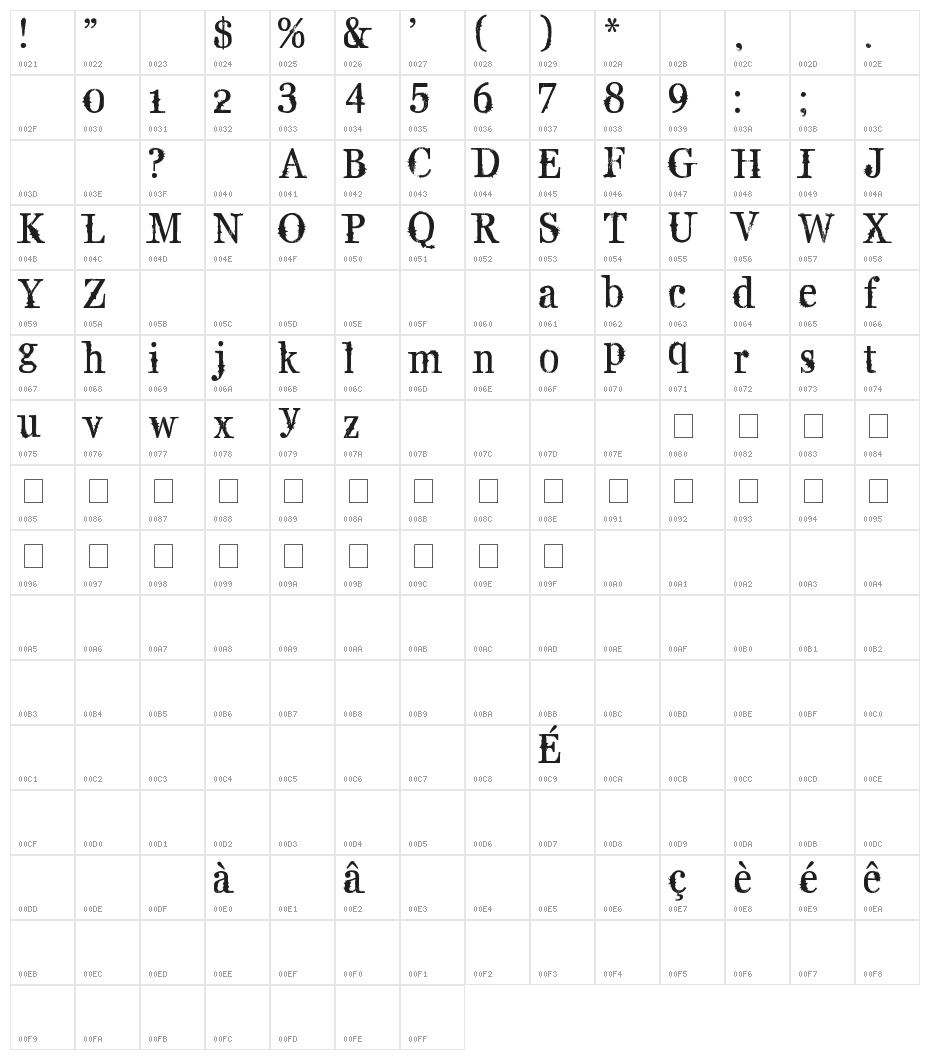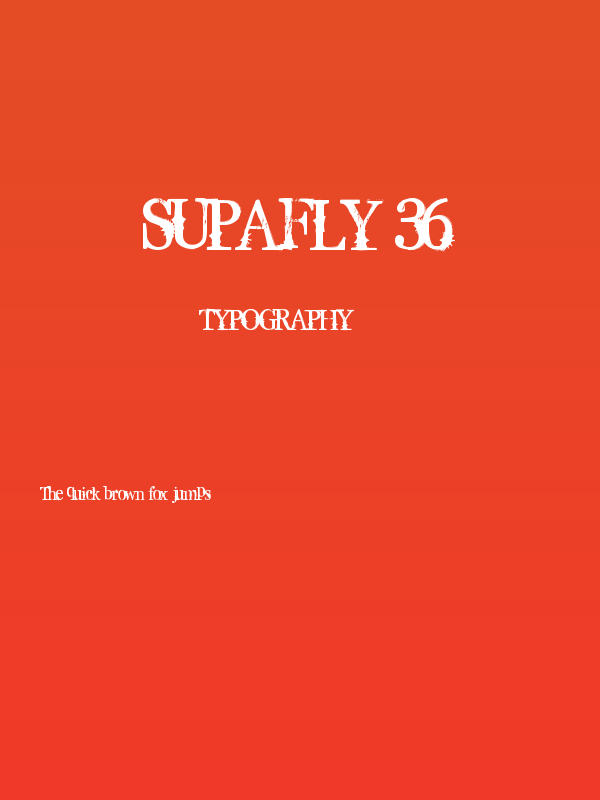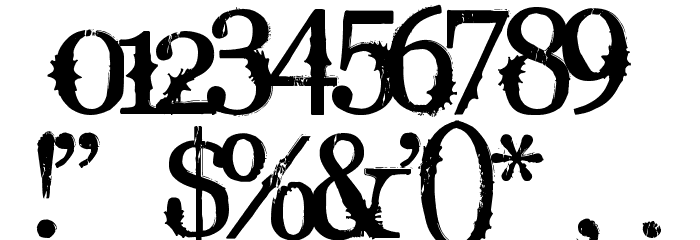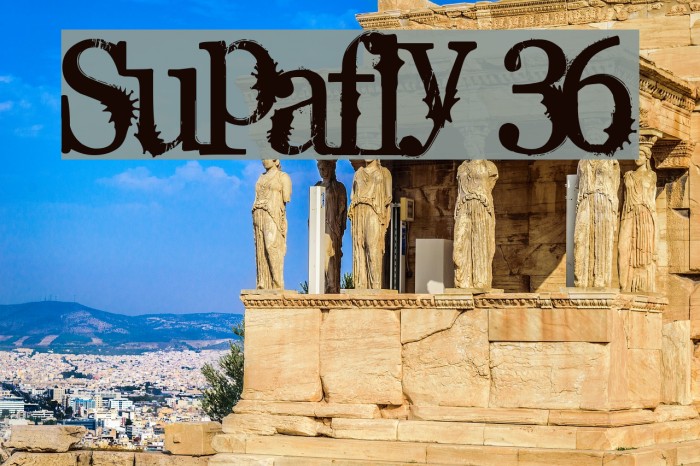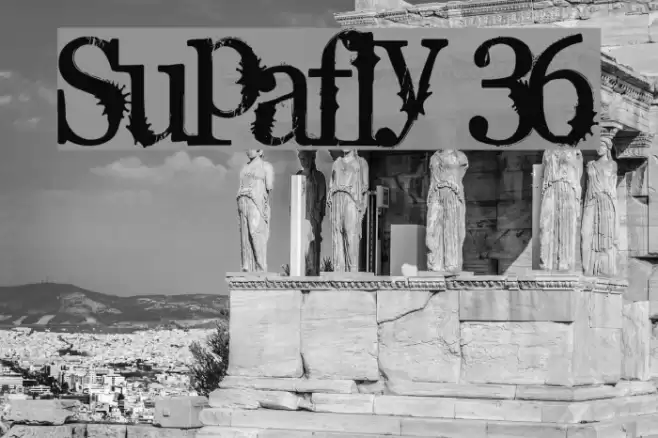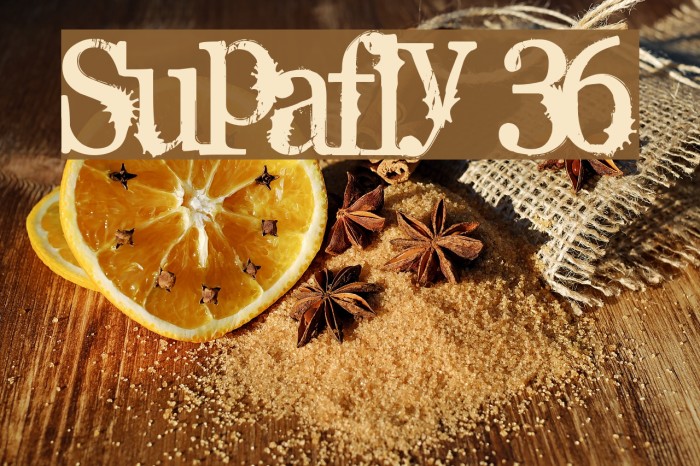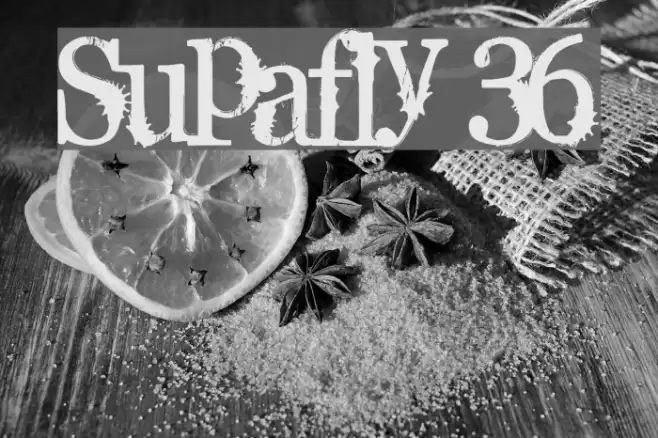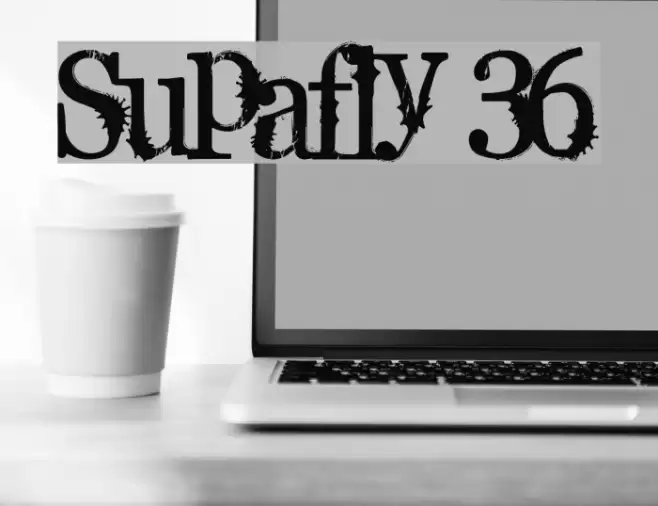
Supafly 36 Font
Supafly 36 Description
This font features a bold and distressed style, characterized by its rough, textured edges that give it a grunge and worn-out appearance. The uppercase and lowercase letters maintain a consistent height, with the uppercase being slightly more pronounced. The numbers and special characters follow the same distressed aesthetic, making the font suitable for designs that require a rugged and edgy look. The font's unique style captures attention and adds a dynamic element to any design project.
| Overall Style | Grunge, Edgy |
| Proposed Projects | Ideal for music album covers, edgy posters, urban-themed designs, and branding for alternative or rock-themed businesses. |